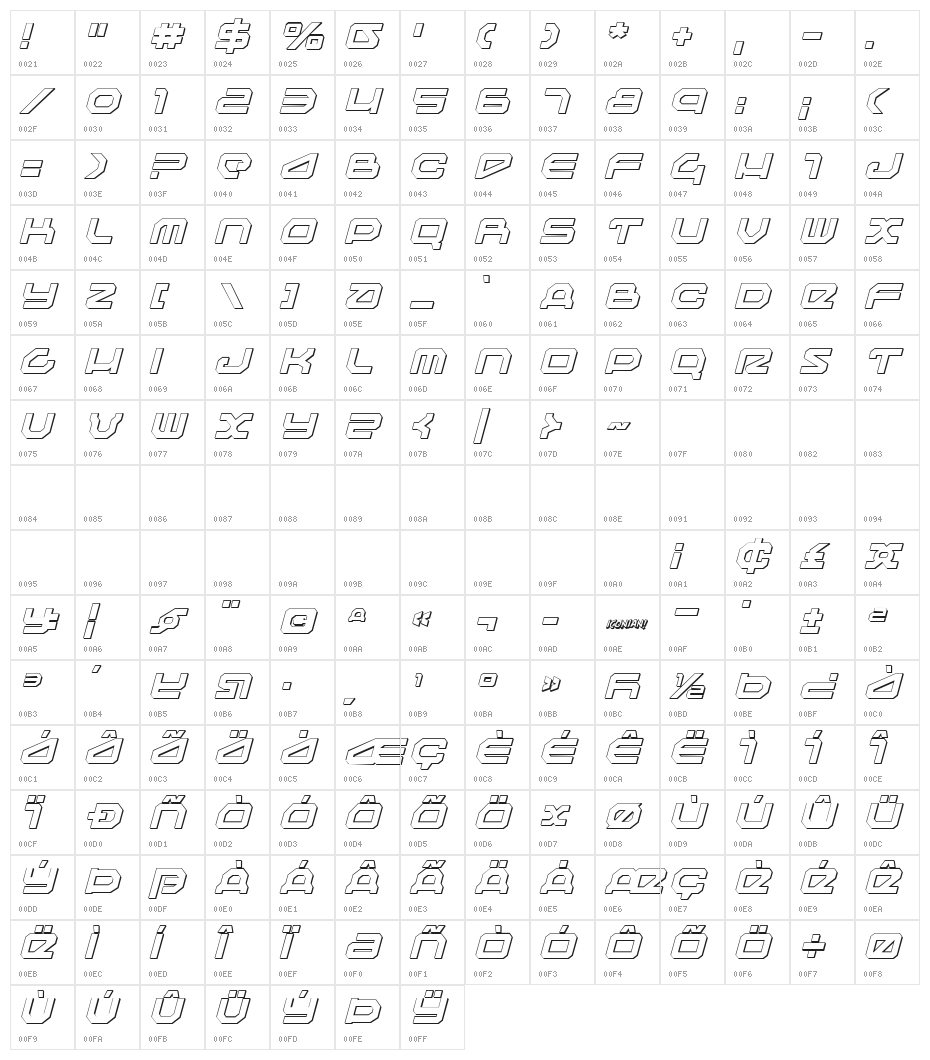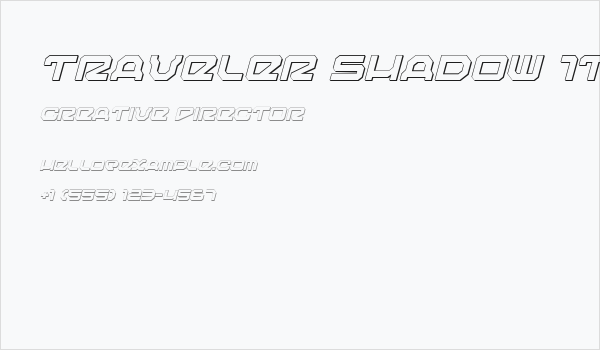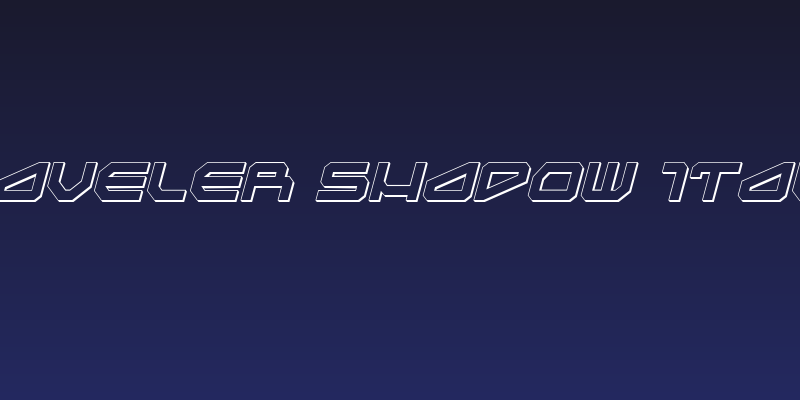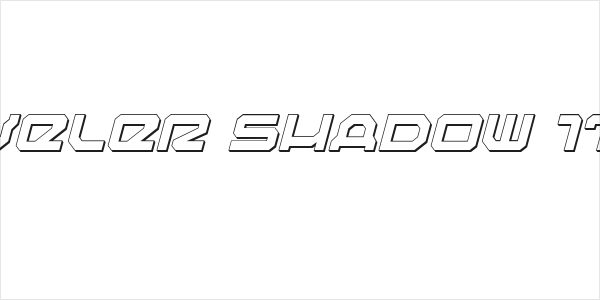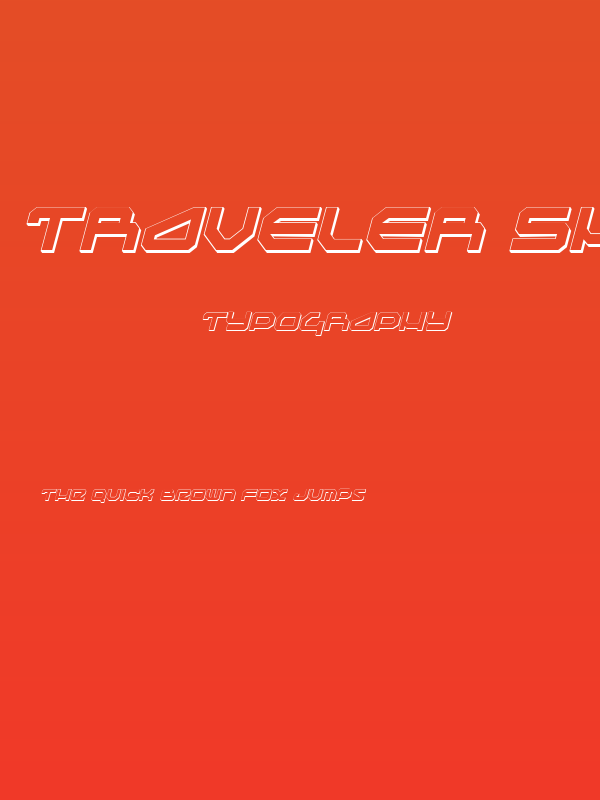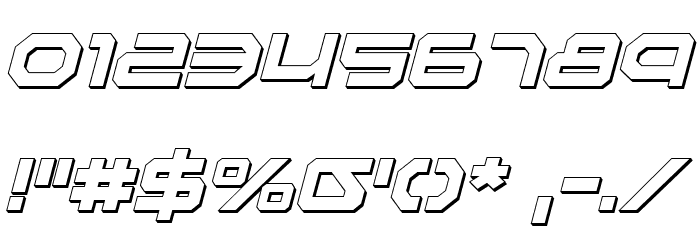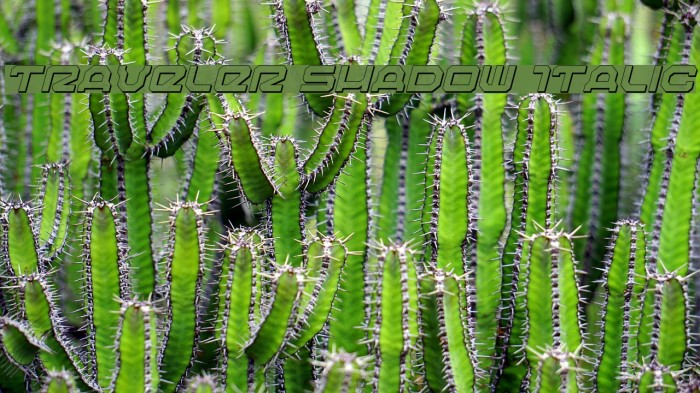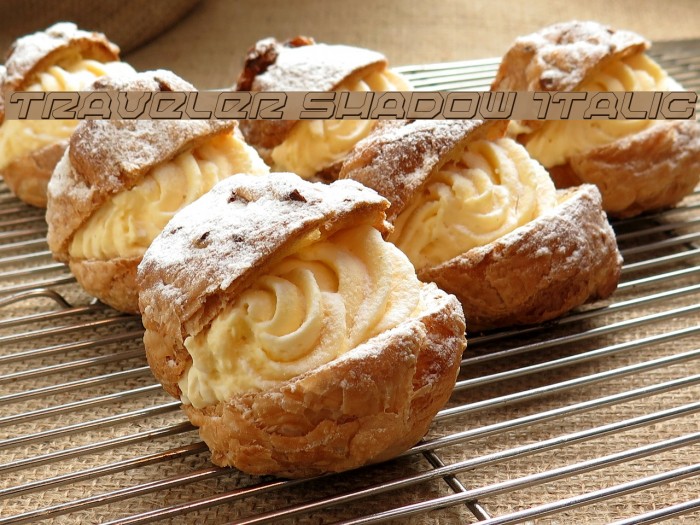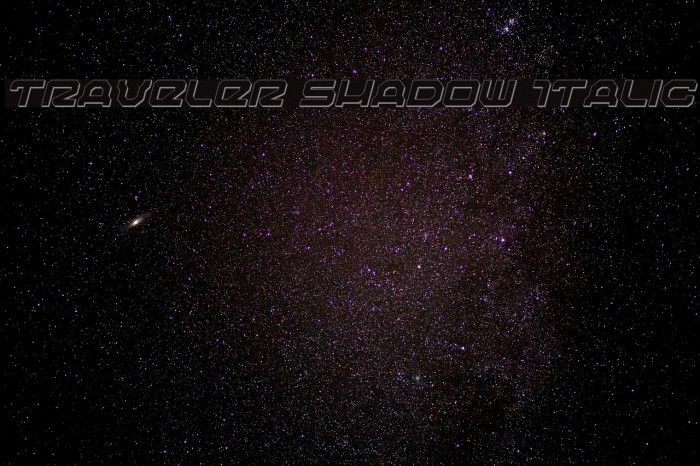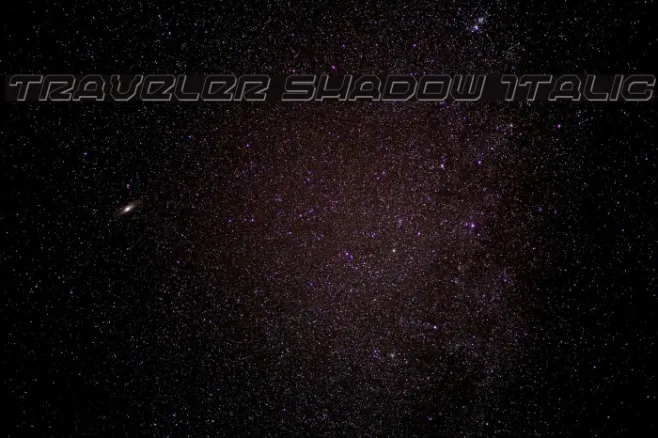
Traveler Shadow Italic Font
Traveler Shadow Italic Description
This font features a bold, futuristic design with a shadow effect that gives it a three-dimensional appearance. The characters are angular and geometric, with sharp edges and a consistent slant that adds to its dynamic look. The uppercase and lowercase letters maintain a uniform style, while the numerals and special characters complement the overall aesthetic. The shadow effect creates a sense of depth, making it ideal for eye-catching designs. Its unique style is both modern and slightly retro, reminiscent of sci-fi themes.
| Overall Style | Futuristic, Sci-Fi |
| Proposed Projects | Ideal for sci-fi themed projects, video game titles, posters, and branding that requires a modern, dynamic look. |